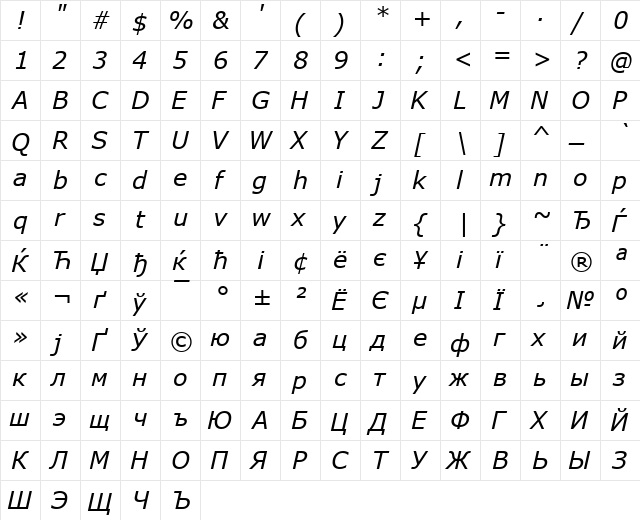
Verdana KOI8 Italic
Design Context for Verdana KOI8 Typeface
Verdana KOI8 offers clean, dependable letterforms without strong stylistic allegiance, making it a practical choice for designers who need flexibility. Its italic angle brings a sense of urgency and motion to the letterforms.
Pro Tip: Use Verdana KOI8 for emphasis, pull quotes, and subheadings where its slanted energy can add rhythm to the layout.